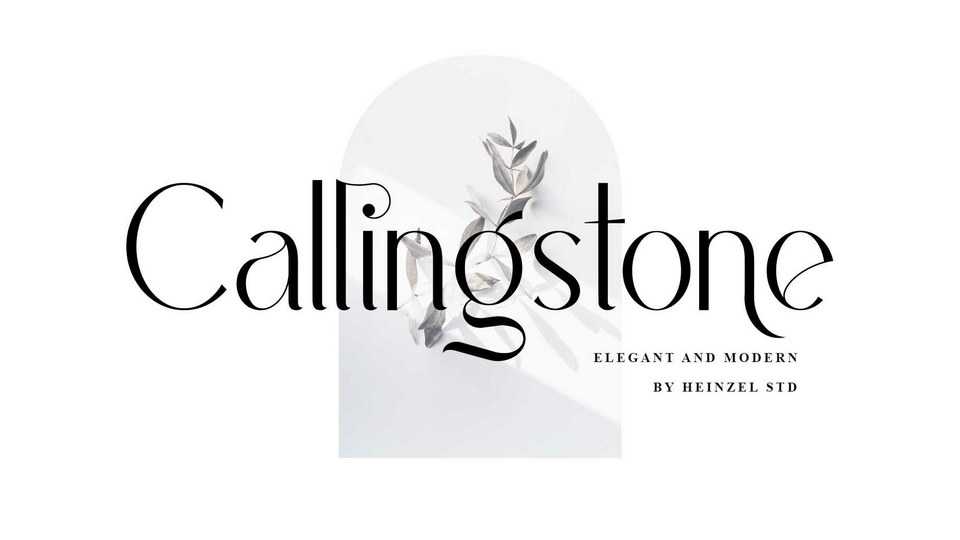
Download Callingstone font, an elegant and modern sans serif typeface. Callingstone is perfect to create gorgeous wedding invitations, beautiful stationary art, logos, eye-catching social media posts, and much more.